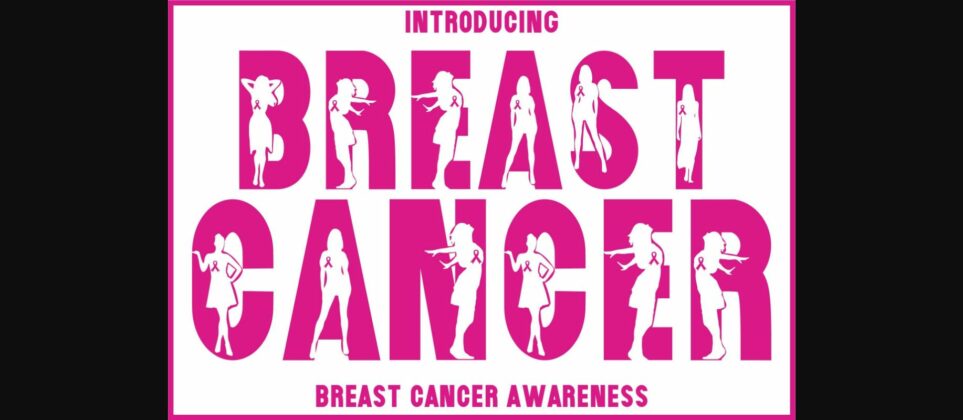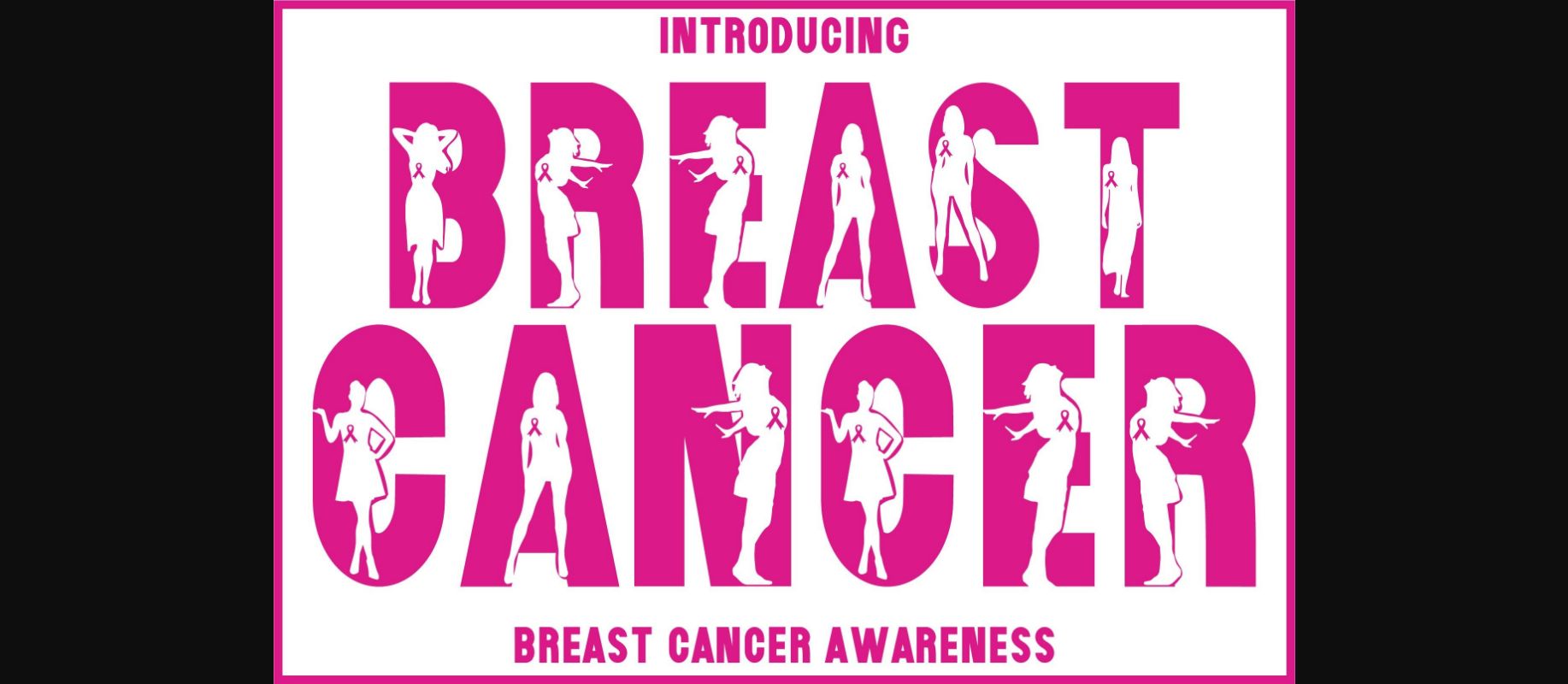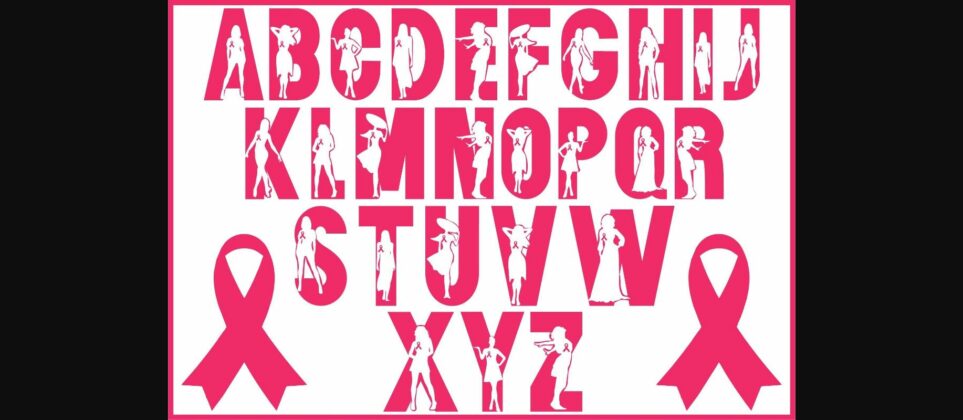
About Breast Cancer Font
Breast Cancer is a thick-lettered and unique decorative font. It is perfectly suitable for any breast cancer awareness project.